Celebrating Women in Typography: Elena Genova
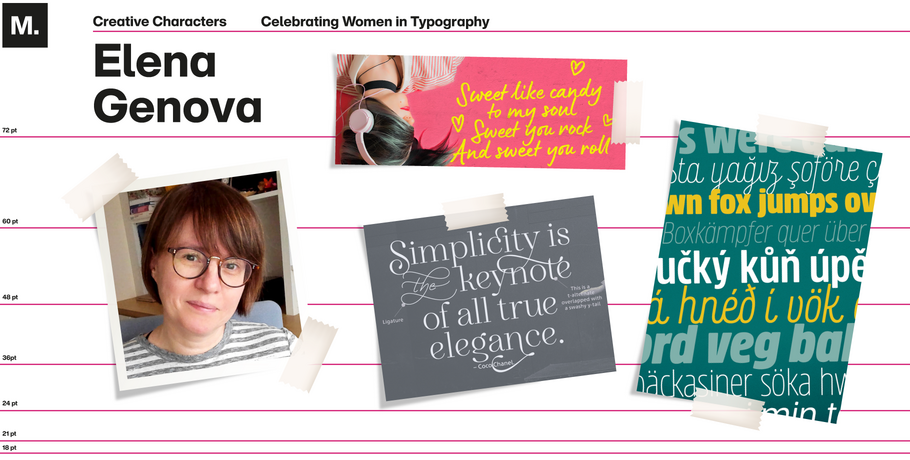
March is Women’s History Month, so we’re taking the opportunity to celebrate some amazing women working in the type design industry.
This week, we’re talking with Elena Genova, a type designer based in Edinburgh, UK, about her journey and insights from her 20-plus-year career in type design.
In conversation with Elena Genova
MyFonts:. Tell us about your journey as a type designer and any challenges you had to overcome?
Elena Genova: I started as a web designer and designed a website about Scotland back in 1998. And that’s when the whole thing started. Then I moved to icon design because I like simplifying things. Then I realized that this is something I really like, why don’t I do what I always wanted to do and digitize handwritings, since I loved handwriting? This is how my first font appeared. My biggest challenge was my lack of a design degree.
MF: When did you start your own Foundry?
EG: Well about the same time when I joined MyFonts 2014-2015.
MF: What is one tip you would give to women who are considering becoming a type designer?
EG: If you get a chance to get a design degree, go for it and gather as much knowledge in the field of typography as possible. Also, look, learn, observe, ask questions, build your confidence. If you like it, just go for it. It’s your typefaces and you are the main critiс. Do what you love, love what you do.
MF. Can you share some insights on what more can be done to advance diversity in typography?
EG: Most of the time designers follow trends. If one typeface is a hit, type designers keep creating literally the same typefaces with the small differences. We need to explore more. Don’t only make what sells as we’ll all end up using Cooper or Windsor.
We also need to do more to encourage designers with different backgrounds, from different countries, to get interest in type design. And promote them! Perhap creating a knowledge database that would be helpful for all young, aspiring designers.
MF: Do you do a lot of exploration?
EG: I do. When I start a typeface, it looks absolutely different from how it finally comes out. And it’s difficult because if you lock yourself into one style, you would finish the typeface much sooner. But if you are trying to make it more appealing, then it takes time and sometimes you just need to finish the first style and then do the second one, not transition from one to another.
MF: What inspired you? How do we inspire others?
EG: I have a passion for type design, but to have a passion you need to learn, you need to look at old typefaces. Explore forums and you’ll find your way into typography.
MF: When you said you started as a graphic/web designer, was that your initial career choice or did you try something different before that?
EG: I started, believe it or not, as a radio engineer. I was supposed to design high frequency devices, but I never worked as a radio engineer. It just never happened, this is the way it works and perhaps still works in Russia, and getting a design degree back then was literally impossible. You could either become an architect or textile designer. And even though I wanted to become an architect it was literally impossible to get into the only university we had then because I didn’t have connections.
MF: What’s your favorite book? Do you have one?
EG: I do —Fonts and Logos by Doyald Young. It’s brilliant. It’s like a whole book of ideas and inspiration. I read a lot of books. I have like a full bookshelf on typography design and technical things.
MF: What do you do besides type? Share a fun fact about you.
EG: I used to be a keen table tennis player but with the lockdown, it is not really working out. I’ve discovered another sport - indoor cycling with Peloton which I’m really enjoying. I never thought it would last, everybody kept saying ‘you’re not going to use it, it will become a hanger for your clothes.’,. I’ve never been into cycling. Never, ever. I’m afraid to cycle, to be honest, especially in Scotland, because it’s either up the hill down the hill and it’s just scary. But this is just fun.
I also have a dog — Benji. I love to walk the dog. I also like to cook.